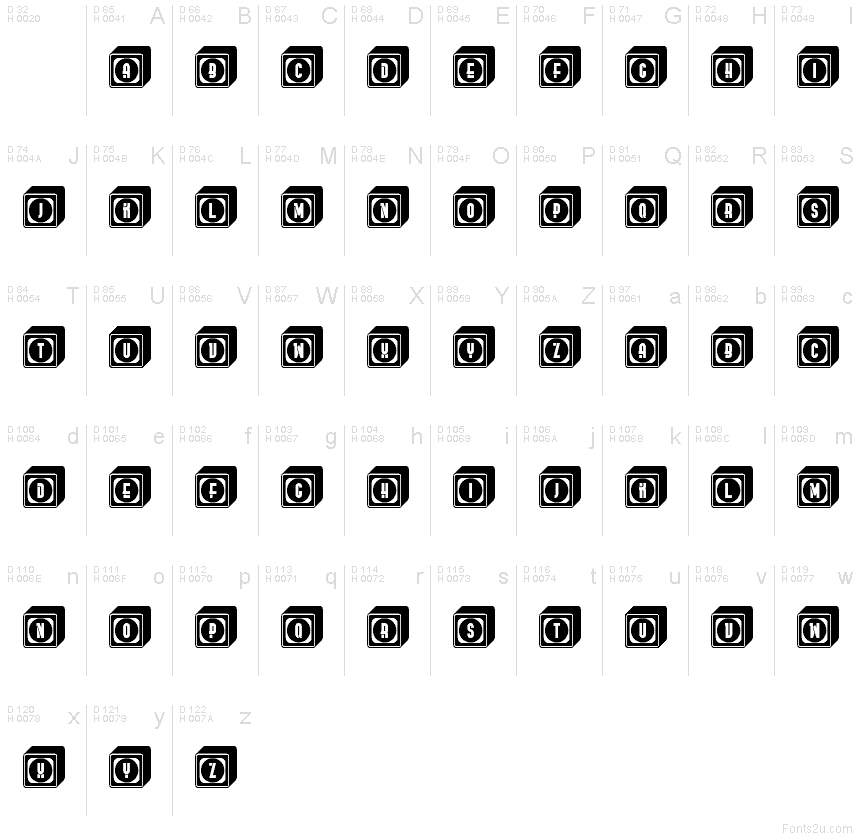
Boxes Forma font by Vladimir Nikolic is a free decorative 3D display typeface that turns every letter into a bold, blocky tile. Each character sits inside a solid cube with a crisp white border and a deep shadow, so words feel like glossy dominoes sliding across a dark tabletop. The rounded inner shapes contrast with the hard-edged boxes, giving the type a playful yet sturdy rhythm that instantly grabs attention in a compact strip of text.
Using Boxes Forma, headlines become little stacks of signage, great for game titles, toy packaging, retro tech branding, event posters, and quirky YouTube thumbnails. This free font shines when set large and tight, letting the individual cubes lock into a strong, horizontal band. Pair it with a simple, clean sans serif for body copy to keep the focus on the chunky boxed letters.